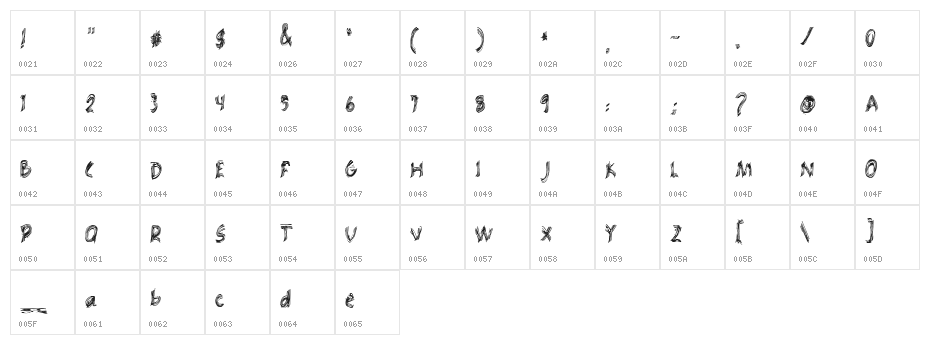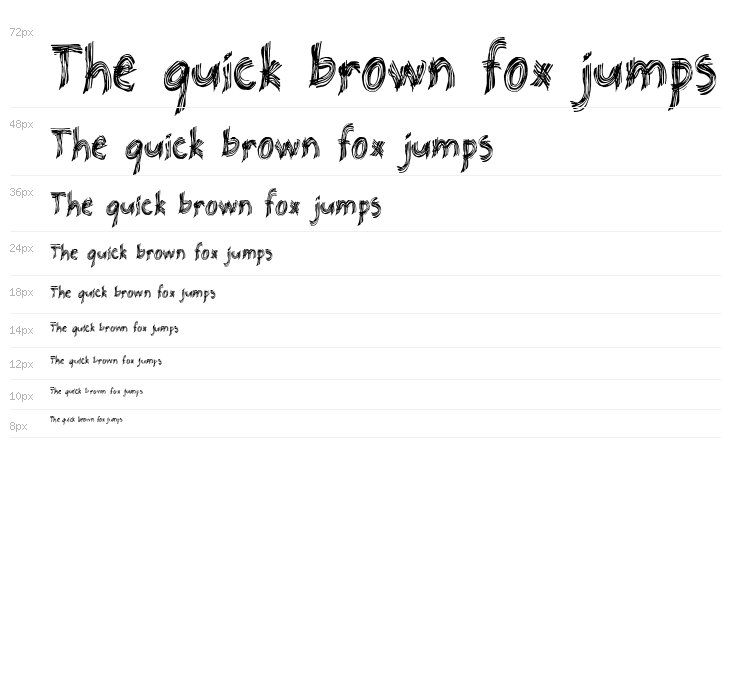
Racana Font
Racana Description
This font features a dynamic and energetic design, characterized by its sketch-like, hand-drawn appearance. The strokes are irregular and jagged, giving it a raw and edgy feel. Each character appears as if it has been meticulously crafted with a pen, showcasing a unique texture that adds depth and personality. The uppercase and lowercase letters maintain a consistent style, while the numbers and special characters follow the same artistic theme. This font stands out with its bold and expressive nature, making it ideal for projects that require a touch of creativity and individuality.
| Proposed Projects | Ideal for artistic projects, album covers, posters, and creative branding. |